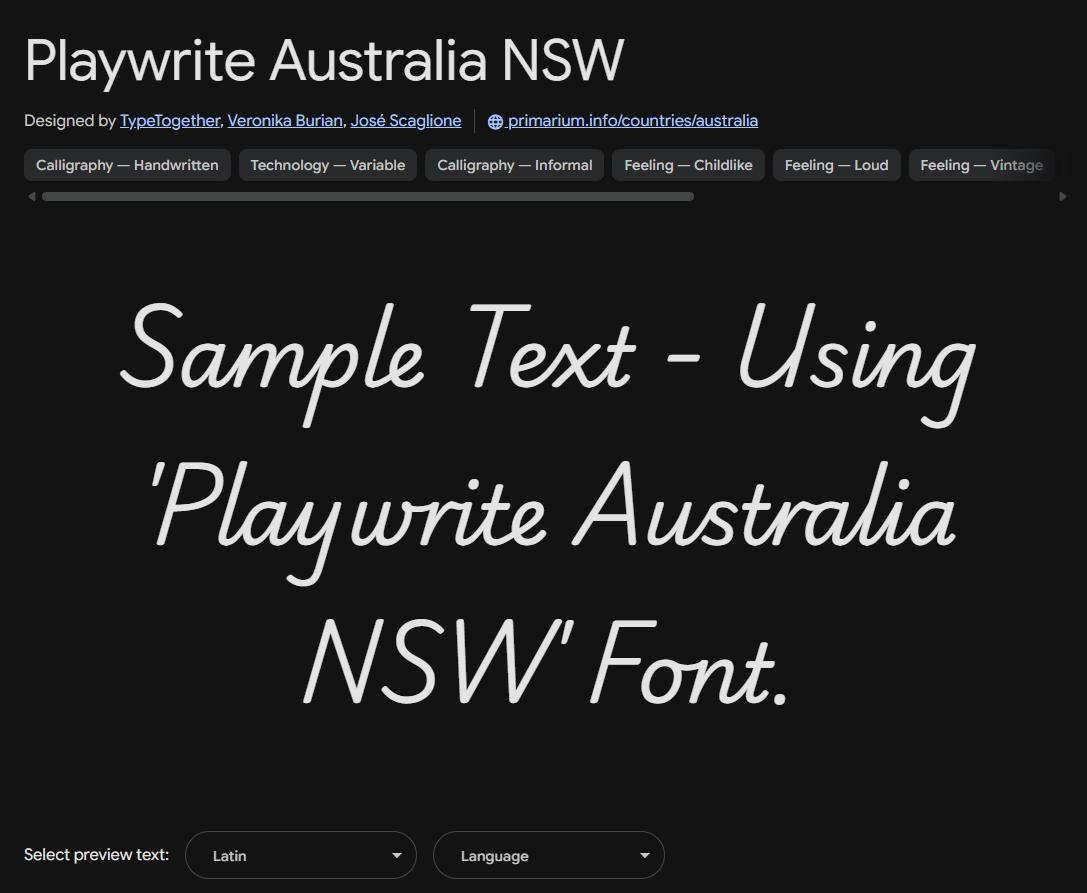
Engineered by Veronika Burian and José Scaglione of TypeTogether, Playwrite Australia NSW functions as a high-fidelity digital translation of the New South Wales primary school handwriting model, integrating pedagogical precision with modern font engineering. This variable font, defined by a single weight axis, utilizes sophisticated OpenType features to manage the complex join logic inherent in continuous-line cursive, ensuring that the rhythmic fluidity of manual penmanship is preserved across various stroke thicknesses. By adhering to specific regional educational standards while employing the technical efficiency of the variable format, the typeface optimizes digital literacy environments, offering a semantically rich tool that bridges the gap between traditional tactile learning and contemporary screen-based interfaces.
The Playwrite Australia NSW font family leverages cutting-edge variable technology to transform the New South Wales Foundation Style into a dynamic typographic tool that balances informal calligraphy with the structured requirements of modern pedagogy. This handwritten script captures a uniquely active and playful energy, utilizing fluid interpolation across weight axes to shift from a delicate, vintage-inspired penmanship to a loud and rugged aesthetic that remains highly legible. By digitizing traditional classroom strokes, the typeface evokes a happy and childlike wonder while maintaining the technical precision of a variable font, offering a semantically rich experience where each glyph reflects the happy, informal nature of early literacy education. This innovative approach ensures that the font feels both nostalgic and contemporary, providing an active visual rhythm that mirrors the energetic development of a student's own handwriting style.
The Playwrite Australia NSW variable typeface, meticulously engineered by Veronika Burian and José Scaglione of TypeTogether to adhere to the New South Wales Department of Education's pedagogical handwriting models, is fundamentally ill-suited for high-precision industrial engineering documentation or high-stakes corporate legal instruments where optical neutrality and standardized typographic rhythm are paramount. Because its glyph construction is governed by specific entry and exit strokes designed for the developmental mimicry of cursive motor skills, the font lacks the mechanical clarity and horizontal compacting required for high-density data visualizations or medical diagnostic interfaces. The variable weight axis, while versatile for educational scaffolding, cannot overcome the inherent semiotic associations of primary education, rendering it a detrimental choice for luxury sector branding or professional financial reporting where the instructional nature of its stroke modulation would undermine the necessary gravitas and rapid-scan legibility demanded by professional information hierarchies.
This font is specifically designed to meet the cursive handwriting standards required by the New South Wales Department of Education for early learners. Its architecture facilitates phonics-based learning by adhering to the precise glyph proportions and directional strokes defined by the NSW Foundation Style guidelines.
The font utilizes advanced OpenType features to simulate natural handwriting flow between individual characters. Through the implementation of contextual alternates and standard ligatures, the typeface dynamically adjusts exit strokes to ensure seamless joins across varying kerning pairs.
While primarily educational, its clean and friendly aesthetic makes it a distinctive choice for lifestyle or artisanal brands seeking a human touch. The variable font technology allows designers to fine-tune the stroke modulation, offering a unique visual identity that maintains a high degree of stroke-width consistency across vector environments.
The typeface is optimized for clarity, ensuring that its looped structures remain distinct even when used in denser paragraphs. High x-height ratios and generous counters prevent ink trap issues, maintaining a legible 300 DPI threshold even when rendered at 8pt on standard offset paper.
This script pairs effectively with clean geometric sans-serifs or sturdy slabs that provide a structural contrast to its fluid lines. Analyzing typographic hierarchies suggests that pairing it with a font like Inter or Roboto maximizes contrast by utilizing a distinct weight distribution across the vertical metric.
The vector outlines are refined to produce sharp edges and smooth curves when output to professional printing hardware. The font's Bezier curve precision ensures that PostScript hints translate accurately into high-frequency screening patterns, preventing aliasing artifacts in large-format outputs.
This typeface is often released as a variable font, allowing for a continuous range of weights from thin to bold. By leveraging the wght axis in CSS, developers can achieve precise contrast ratios that satisfy WCAG 2.1 accessibility standards for visual contrast in educational interfaces.
The character set includes standard mathematical operators and punctuation to support basic arithmetic curriculum materials. The Unicode coverage encompasses essential glyphs within the Basic Latin and Latin-1 Supplement blocks, ensuring mathematical expressions maintain stylistic parity with the primary alphabet.
It performs well in interactive environments, particularly in educational apps where tracing and letter recognition are core features. Sub-pixel rendering and anti-aliasing algorithms in modern mobile OS kernels preserve the integrity of the delicate joins, ensuring a high rasterization quality on high-PPI displays.
The clear forms and recognizable shapes make it suitable for directional signage in primary schools or childcare centers. The font's robust path geometry allows for clean CNC routing and laser cutting, maintaining structural integrity when translated into physical 3D aluminum or acrylic substrates.